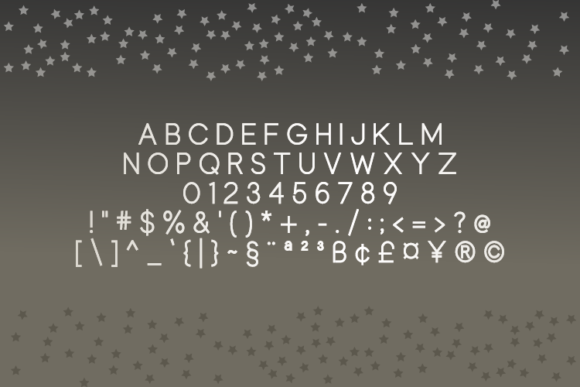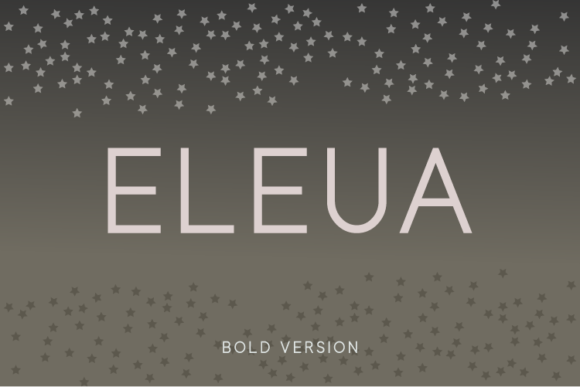
Introducing Eleua Bold Font: A Simple yet Stunning Sans Serif Typeface
Are you on the lookout for a font that exudes simplicity, elegance, and versatility? Look no further than Eleua Bold Font, a beautiful sans serif typeface that is sure to elevate your designs to the next level. In this article, we’ll dive into the features, benefits, and uses of Eleua, and explore why it’s a must-have for designers and crafters alike.
What is Eleua Bold Font?
Eleua is a simple and casual sans serif font with an undeniably clean feel. Its neat and beautiful arrangement of letters makes it perfect for both formal and non-formal designs. With its sleek and modern aesthetic, Eleua is ideal for designers who want to create stunning visual content that stands out from the crowd.
Key Features of Eleua Bold Font
• Clean and Simple Design: Eleua’s sans serif design makes it easy to read and versatile for various design applications.
• 10 Weights: Eleua is a font family with 10 weights, allowing you to choose the perfect weight to suit your design needs.
• Beautiful Arrangement of Letters: Eleua’s letters are carefully crafted to create a beautiful and harmonious visual flow.
• Formal and Non-Formal Designs: Eleua’s versatility makes it suitable for both formal and non-formal designs, from business cards to social media graphics.
Benefits of Using Eleua Bold Font
So, why should you choose Eleua Bold Font for your design projects? Here are just a few benefits:
• Enhance Readability: Eleua’s clean design and simple letters make it easy to read, even at small font sizes.
• Increase Versatility: With 10 weights to choose from, Eleua can be used for a wide range of design applications, from headings to body text.
• Stand Out from the Crowd: Eleua’s unique and beautiful design will help your content stand out from the competition.
• Save Time: With Eleua’s versatility and range of weights, you can use it for multiple design projects, saving you time and effort.
Who Can Benefit from Eleua Bold Font?
Eleua Bold Font is perfect for:
• Graphic Designers: Eleua is a great addition to any graphic designer’s font library, suitable for a wide range of design applications.
• Crafters: Whether you’re creating handmade cards or crafting digital content, Eleua’s beautiful design and versatility make it a great choice.
• Marketers: Eleua’s clean design and readability make it perfect for marketing materials, such as brochures, flyers, and social media graphics.
• Web Designers: Eleua’s sans serif design makes it suitable for web design, ensuring that your website’s content is easy to read and visually appealing.
In conclusion, Eleua Bold Font is a stunning sans serif typeface that offers a unique combination of simplicity, elegance, and versatility. With its 10 weights, beautiful arrangement of letters, and clean design, Eleua is perfect for designers and crafters looking to elevate their designs to the next level. Whether you’re creating formal or non-formal designs, Eleua is a must-have font that will help you create visually appealing and effective content.